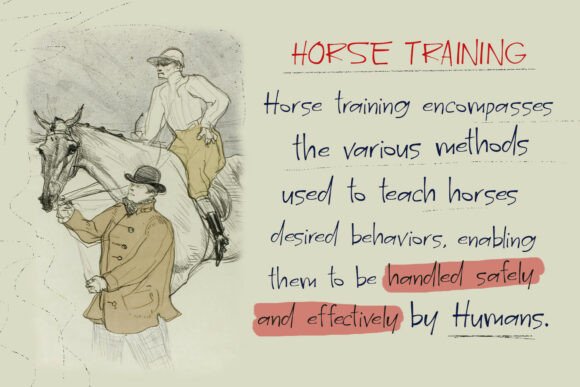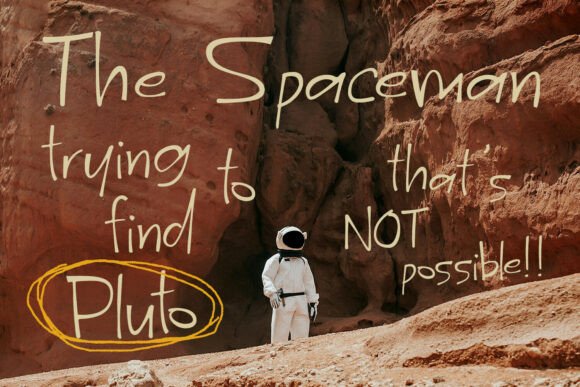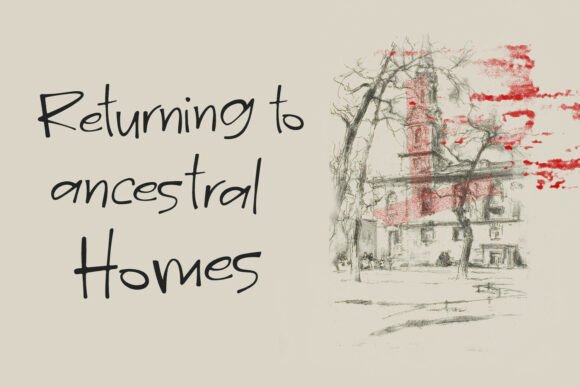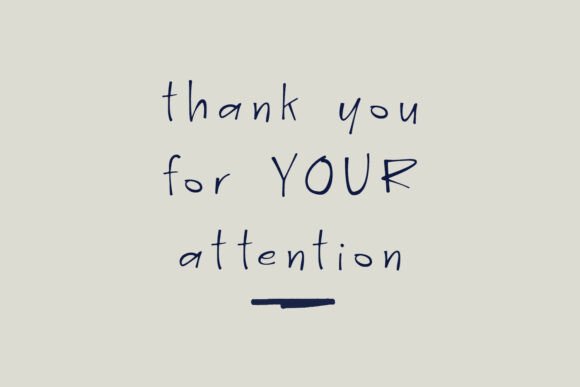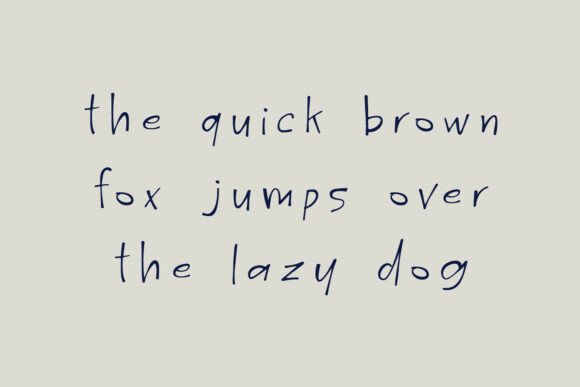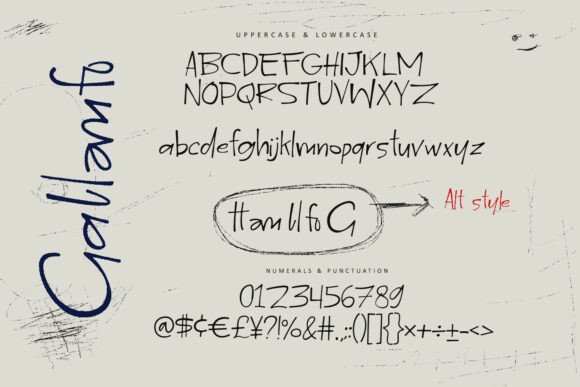
The Quest for the Perfect Handwritten Font: Discovering Gallamfo
Ah, the elusive perfect font. You know, that one that makes your design project go from meh to mesmerizing. I’ve been there, done that, and got the t-shirt (which, by the way, was designed with a not-so-perfect font). But today, I’m excited to share with you a gem that might just be the answer to your typography prayers: Gallamfo Handwritten Brush Font.
A Design Moment of Truth
I recall working on a stationery set for a client who wanted an authentic, handcrafted feel. I scoured font libraries, but nothing seemed quite right. That was until I stumbled upon Gallamfo. Its unique blend of elegance and whimsy won me over, and I knew I’d found the perfect fit. The client’s feedback? “This looks like it was made just for me!” – high praise indeed.
- ✨ Authentic handcrafted feel that adds a personal touch to any design
- ✅ Beautifully designed alternative characters and ligatures for varied typography
- 💫 Perfectly suited for stationery, logos, and a wide range of creative projects
- 🎨 Highly versatile, allowing for both elegant and playful design approaches
- ⚠️ Some users might find the font a tad too ornate for very minimalist designs
- 🤔 Limited use of uppercase letters might require creative workarounds for certain projects
The Story Behind Gallamfo: A Designer’s Inspiration
While the origins of Gallamfo are shrouded in mystery, it’s clear that its creation was driven by a passion for authentic, handcrafted design. Imagine a designer, sitting with a brush and ink, pouring their heart into each stroke – that’s the essence of Gallamfo.
Q: Is Gallamfo suitable for digital use?
A: Absolutely! Gallamfo is designed to shine in both print and digital formats, making it perfect for a wide range of applications, from social media graphics to professional stationery.